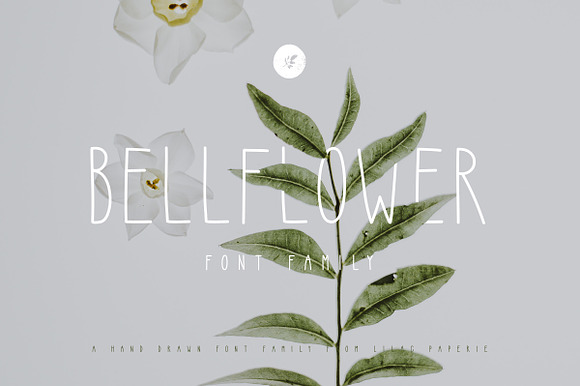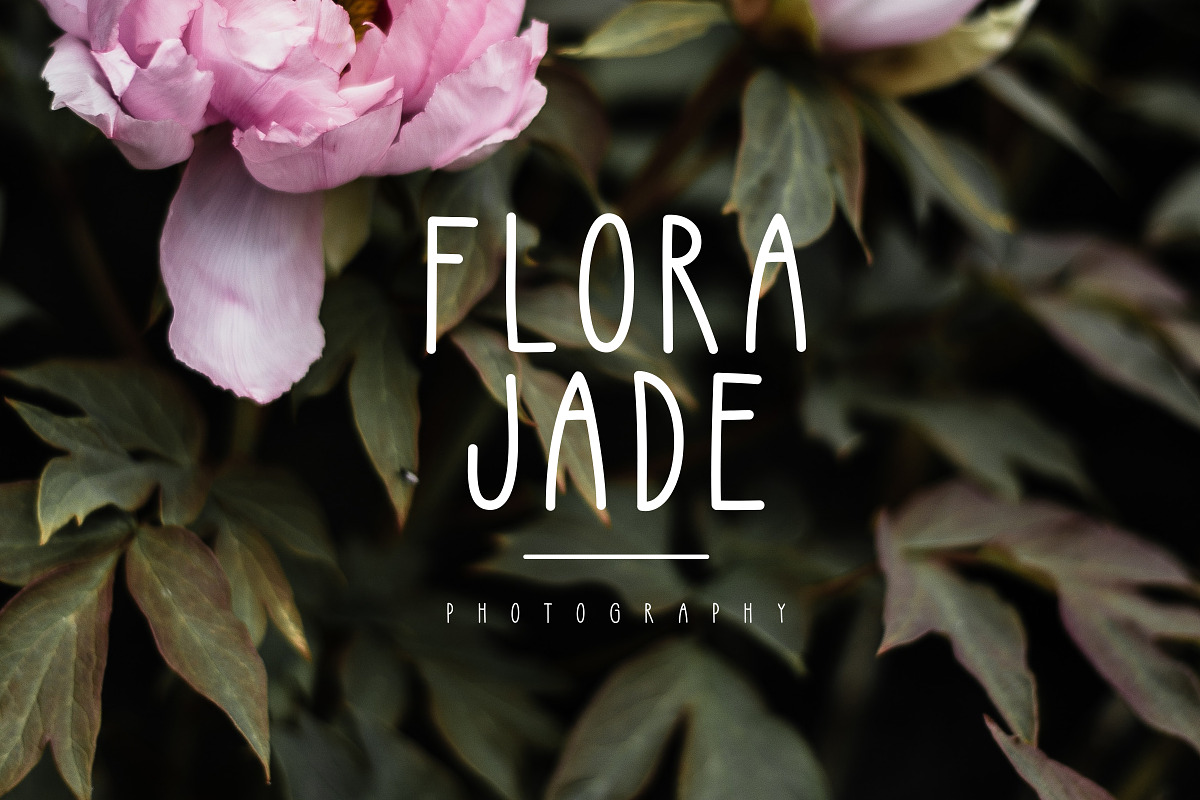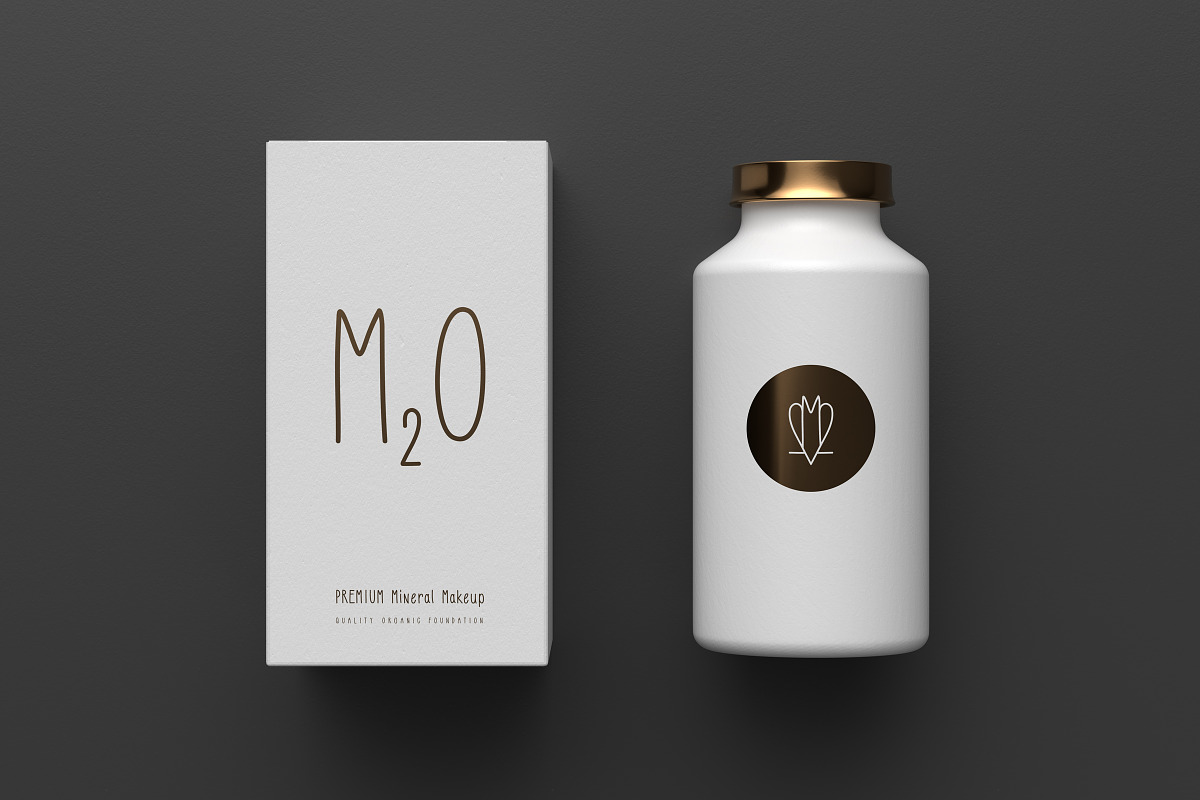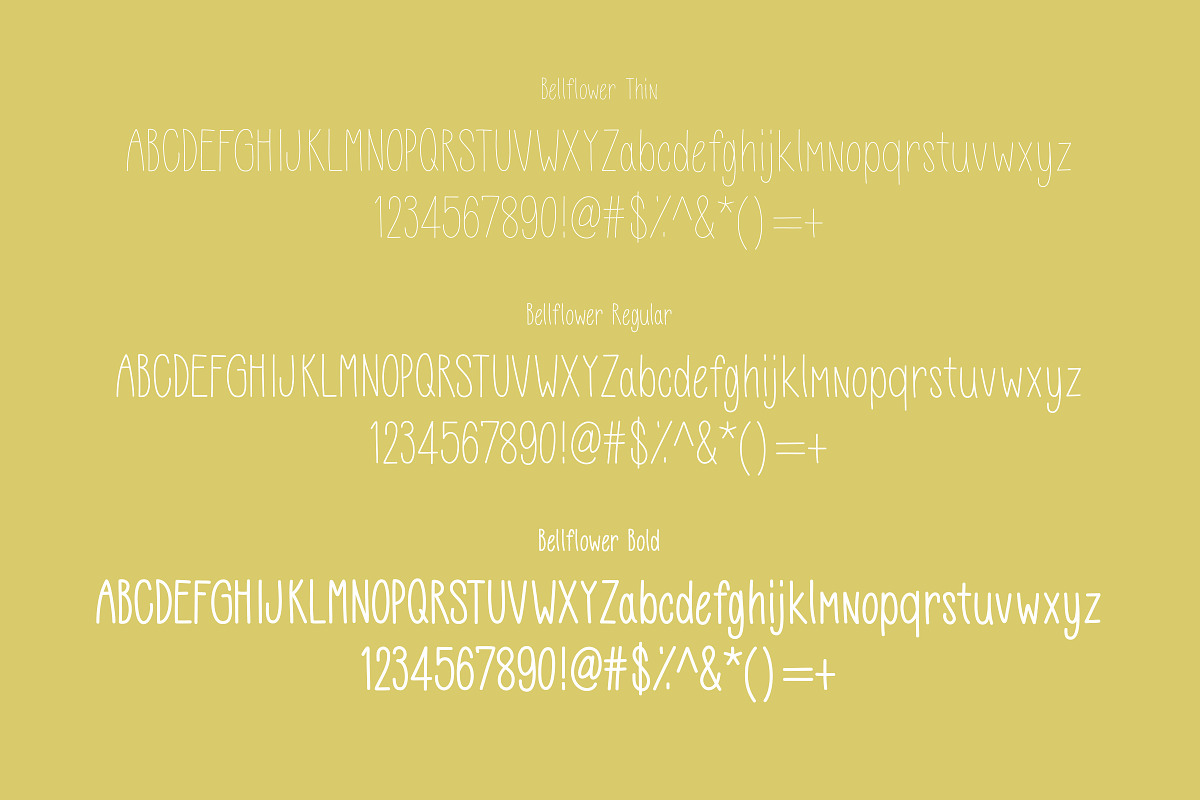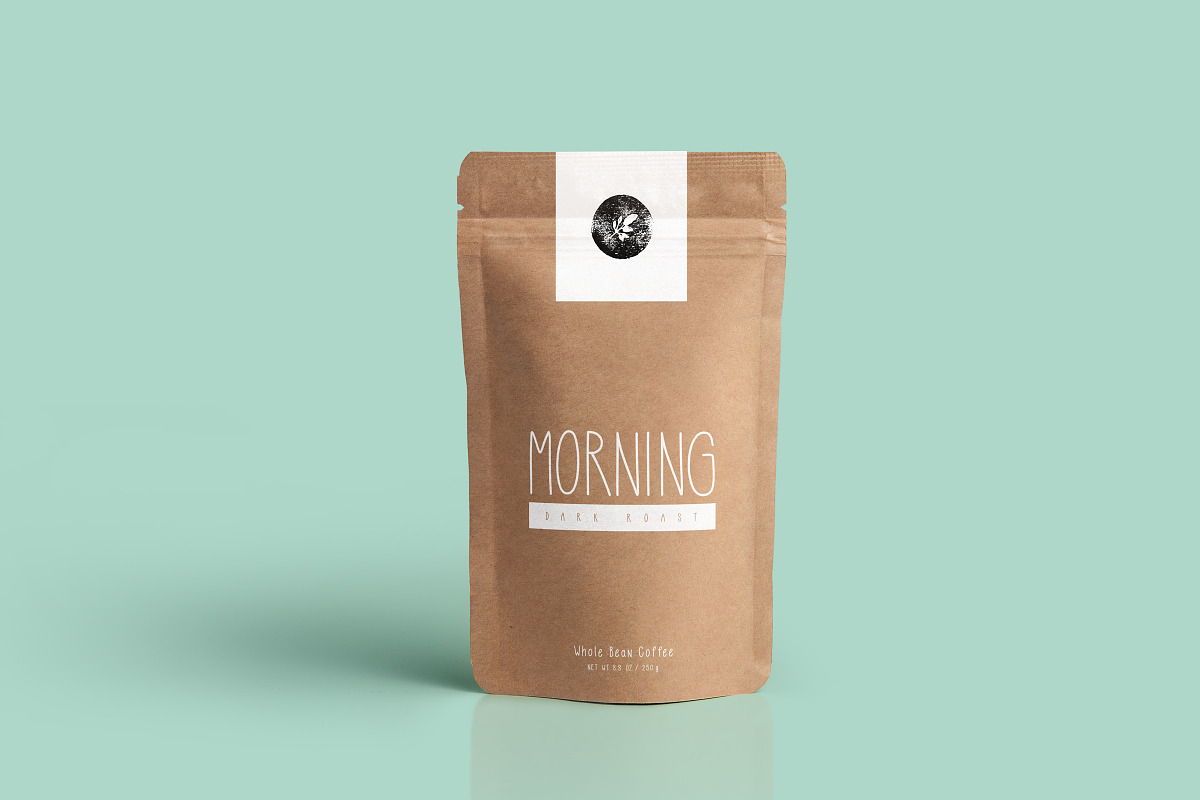
Bellflower Font
Introducing Bellflower font family! A classy, modern font from Lilac Paperie. With 3 different font weights, including thin, regular, and bold. This font is perfect for logos, wedding stationary, product packaging design and so much more!
Why Bellflower Font is worth a look
Bellflower Font by Lilac Paperie fits naturally into Branding, posters, packaging, typography.